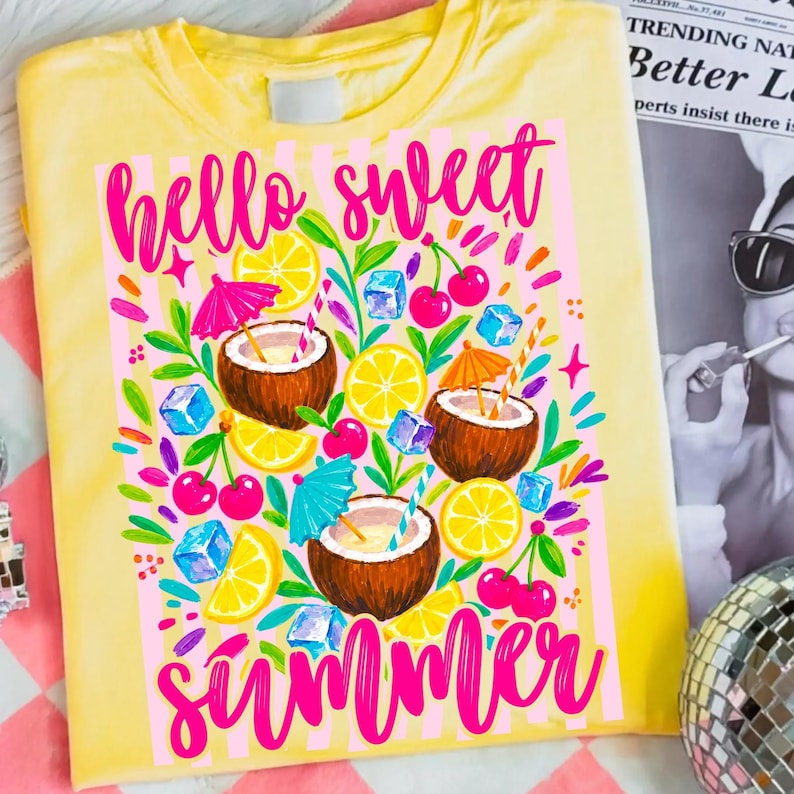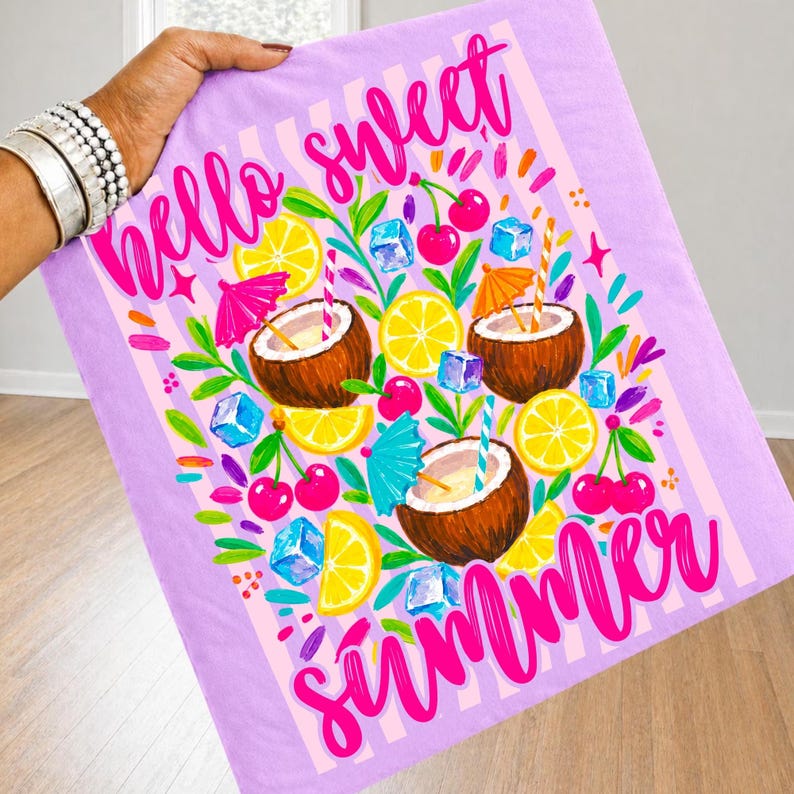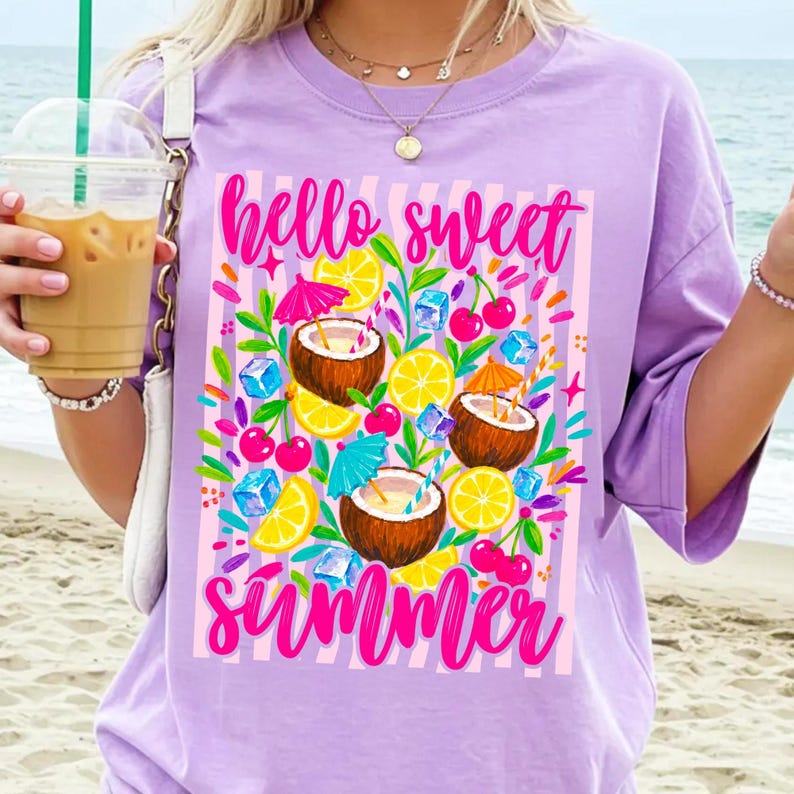
Sip on Sunshine: Create Ultimate Beach Vibes with the Hello Sweet Summer PNG Font Bundle
Summer is all about warm sunshine, sandy toes, and refreshing tropical drinks. If you are a crafter, DIY enthusiast, or e-commerce shop owner, there is no better way to celebrate the sunny season than by creating custom, eye-catching apparel and decor. Introducing the Hello Sweet Summer PNG Coconut Drink Tropical Sublimation Design Set—your ultimate creative companion for the sun-drenched months ahead. This vibrant digital bundle is designed to bring instant beachy energy to your sublimation and Direct-to-Film (DTF) projects.
Unleash Your Creativity with the Ultimate Tropical Font & Clipart Bundle
What makes this digital download stand out in a sea of summer graphics is its incredible versatility and hand-crafted detail. The bundle features stunning watercolor textures and beautifully detailed, hand-drawn coconut drink illustrations. Complete with tropical hibiscus florals and lush green palm leaf accents, this design instantly transports you to an island paradise.
Perfect DIY Projects for Sun-Drenched Summer Days